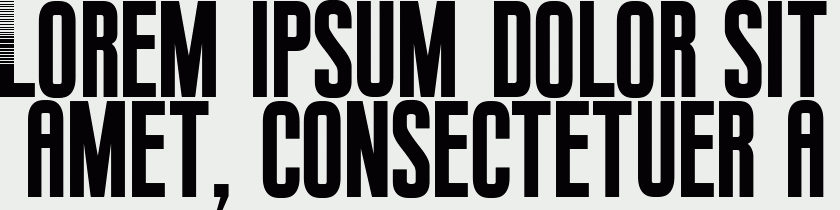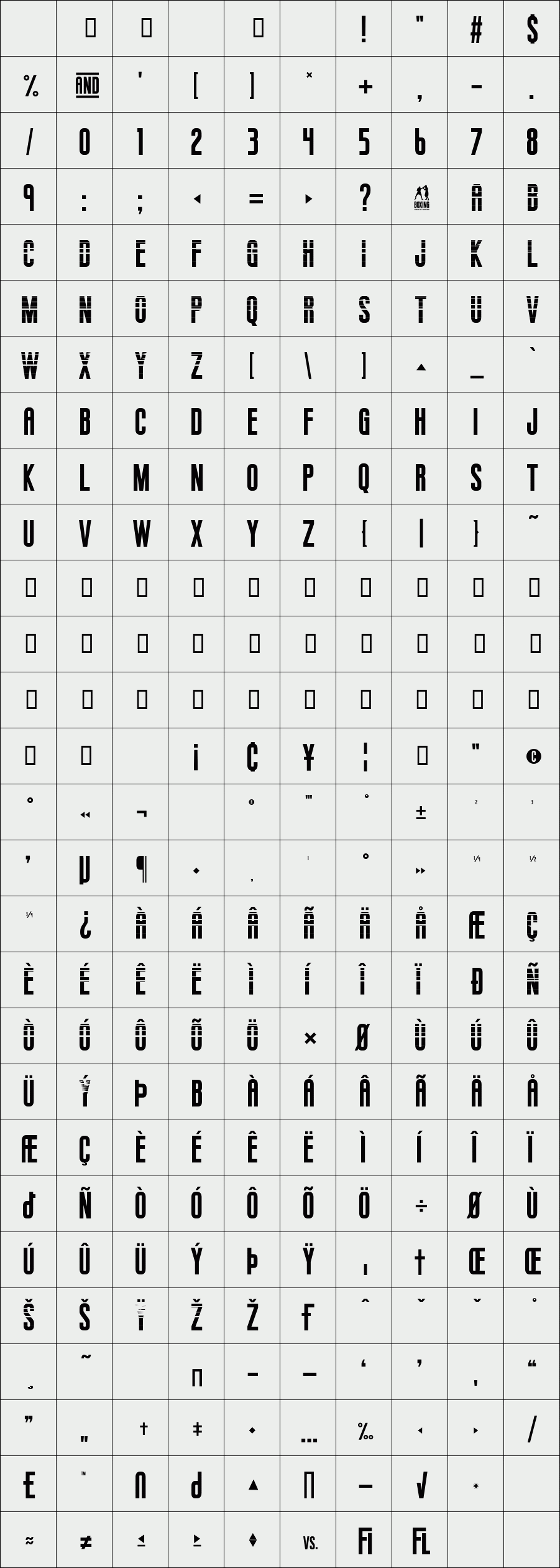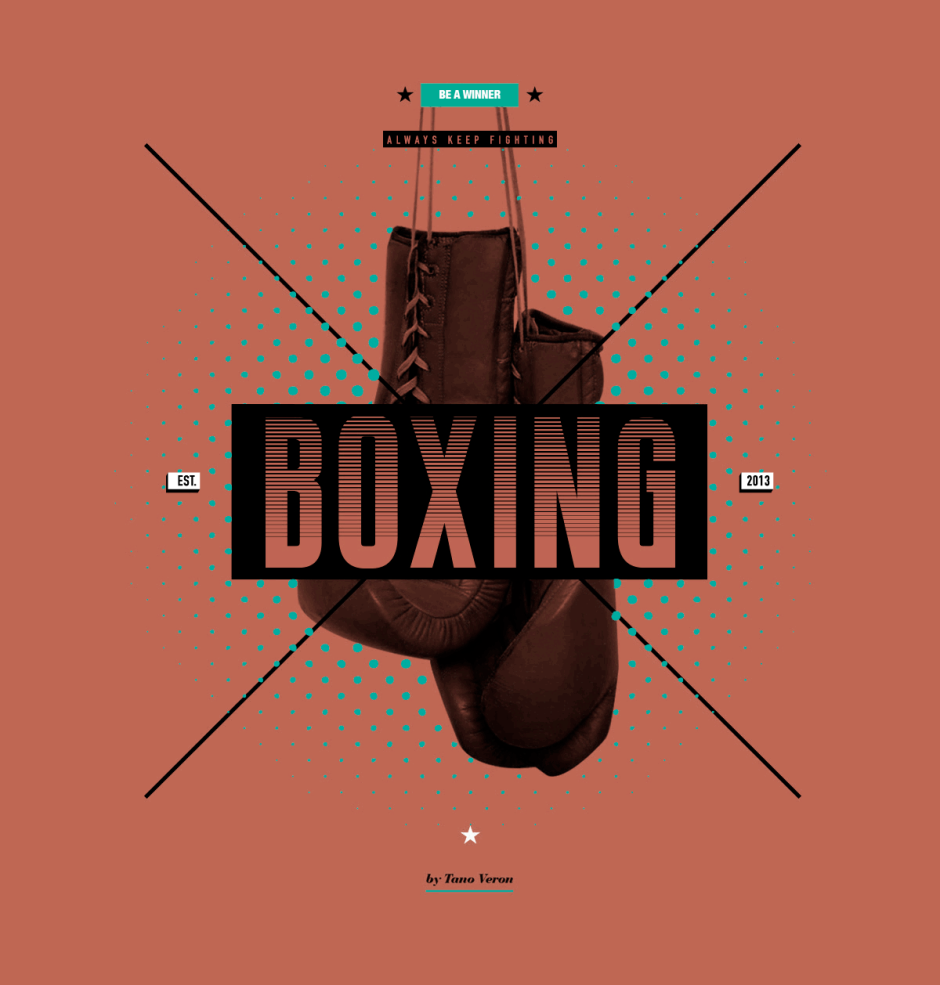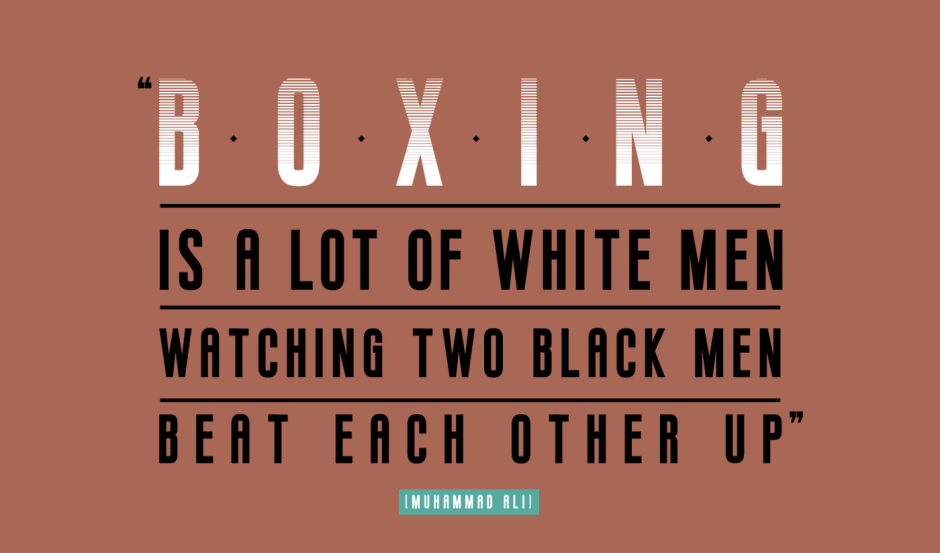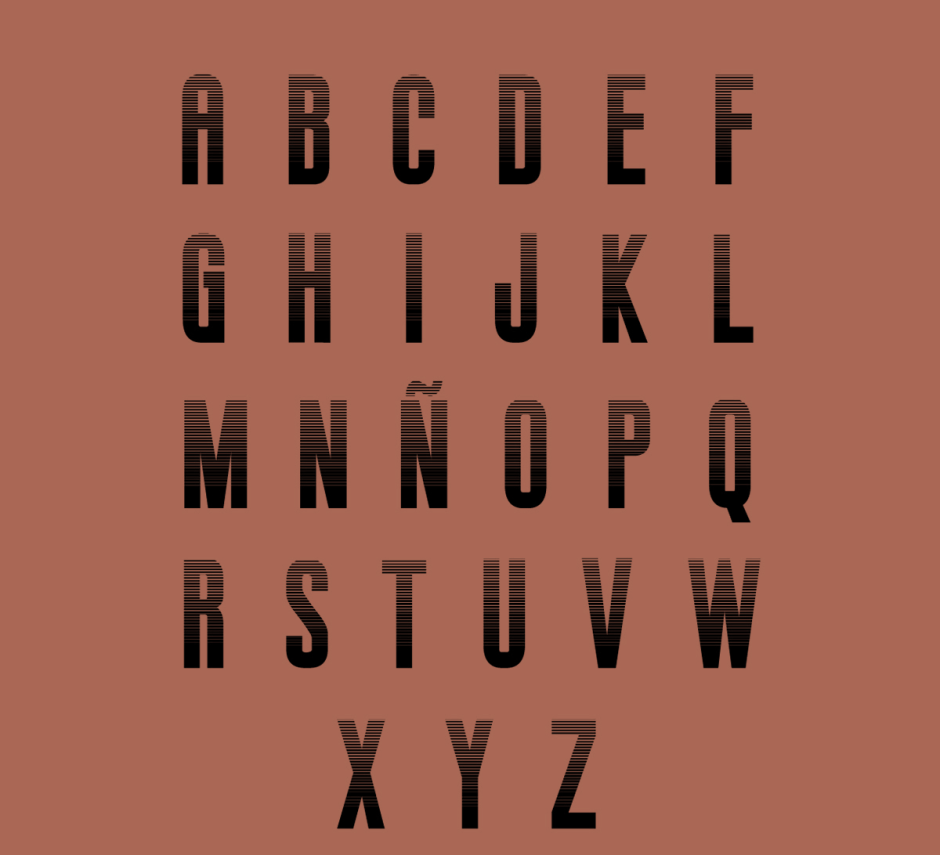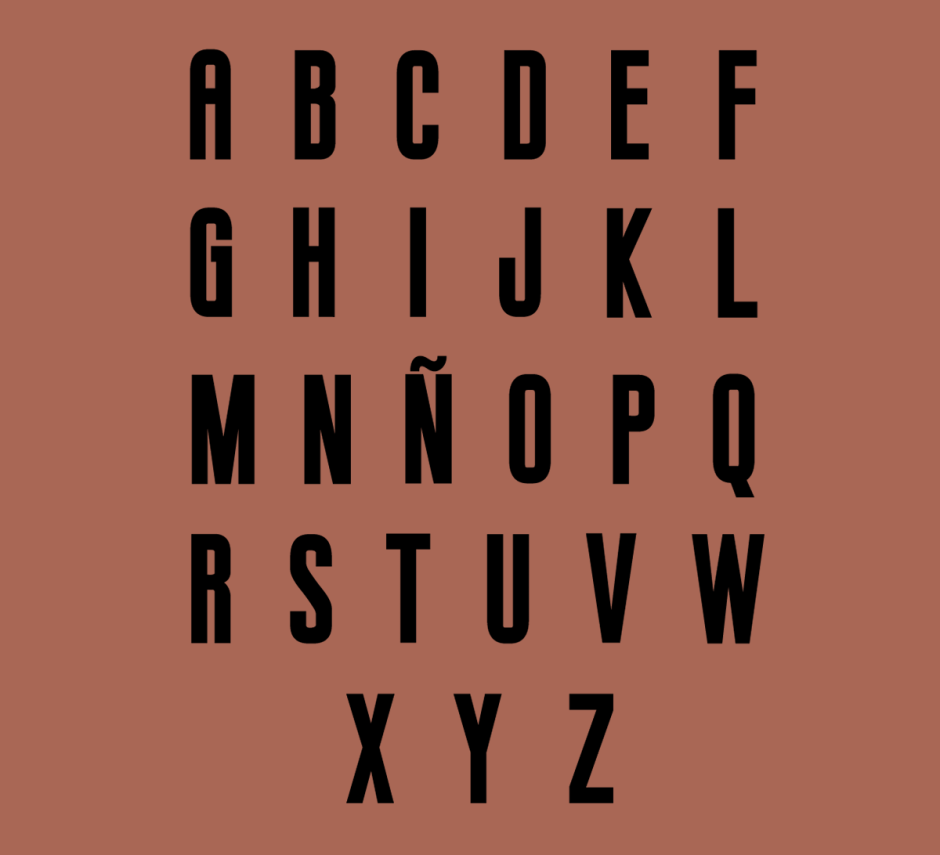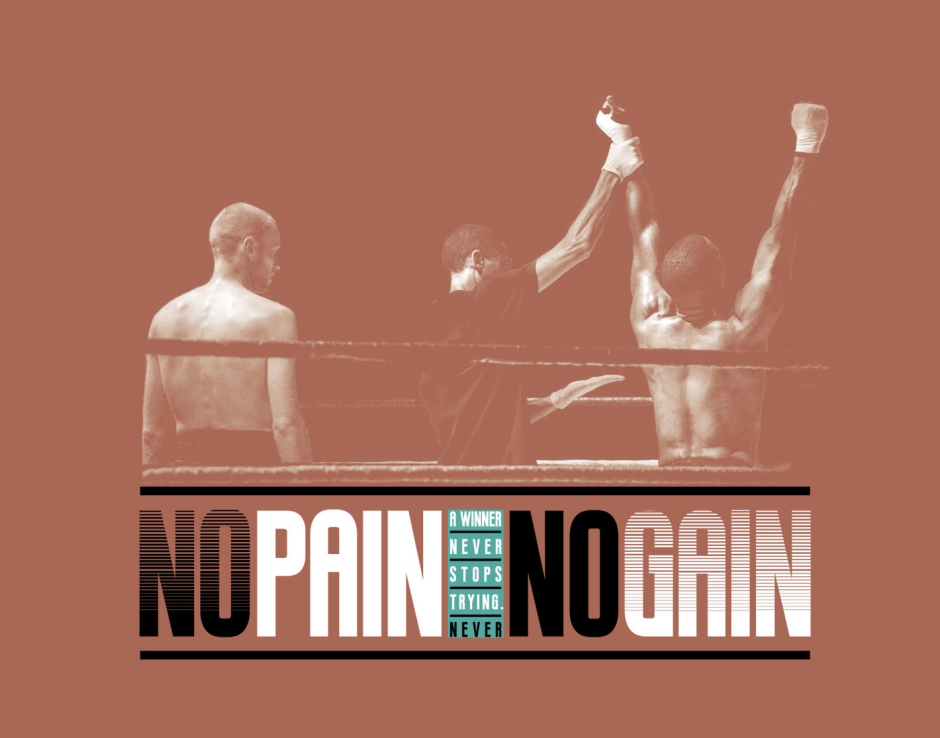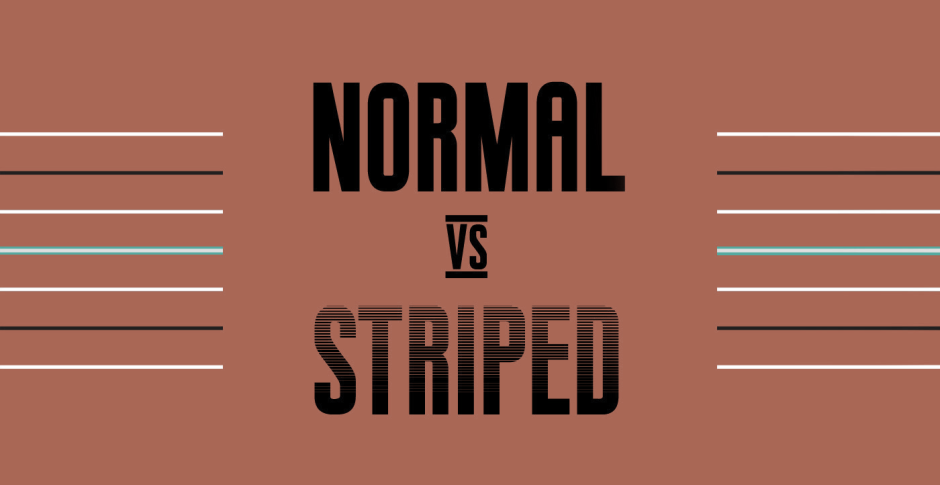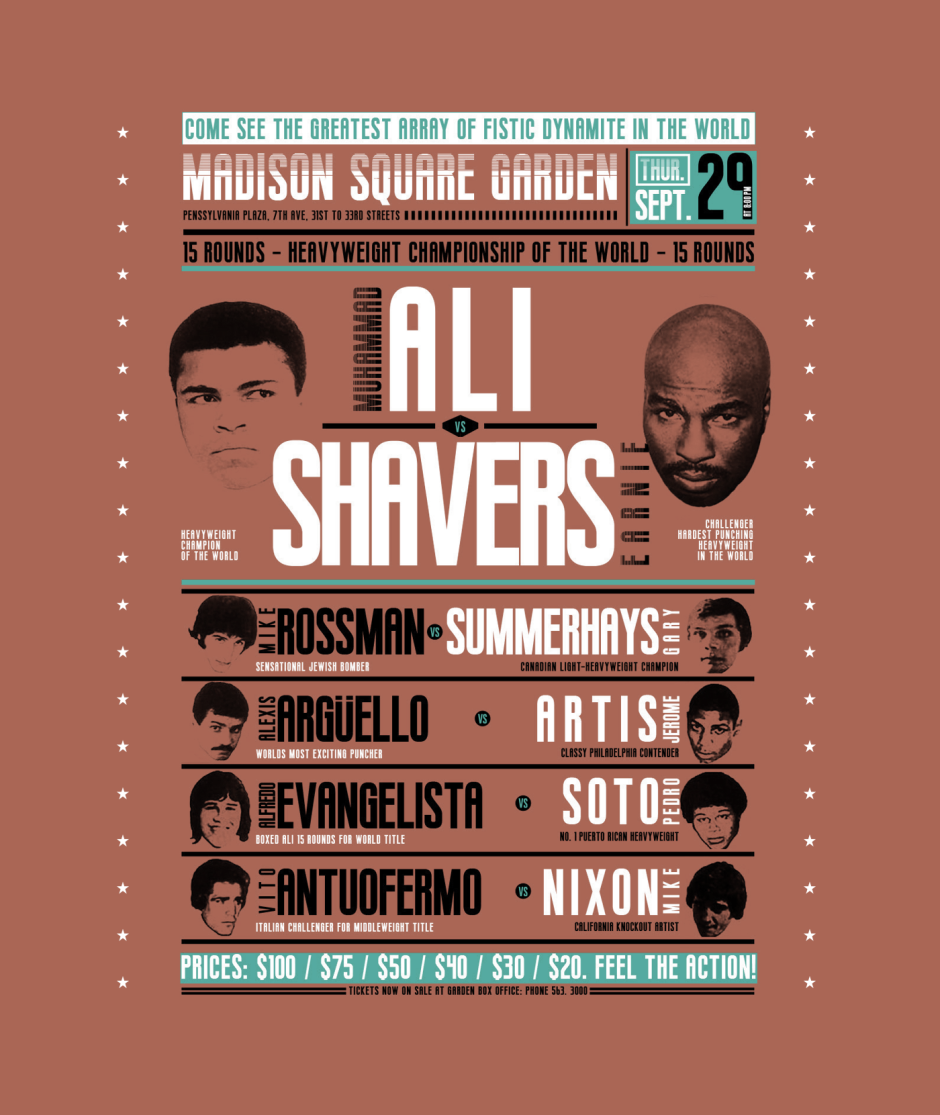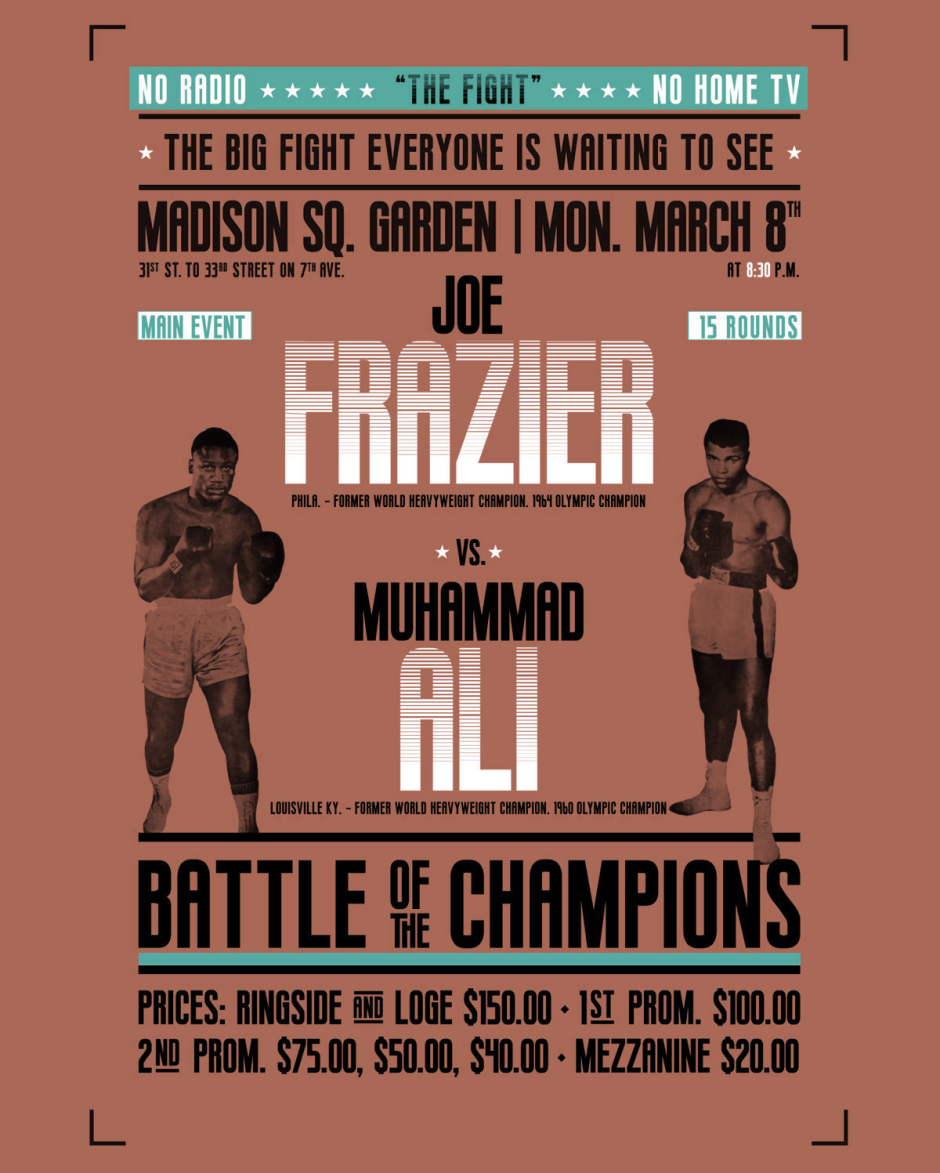
BOXING
BOXING is a typography inspired by retro boxing posters, taking gestures condensed & sans serif style.
BOXING is strong, tall, & robust.
Be a winner.
GO, FIGHT, WIN!
BOXING is strong, tall, & robust.
Be a winner.
GO, FIGHT, WIN!